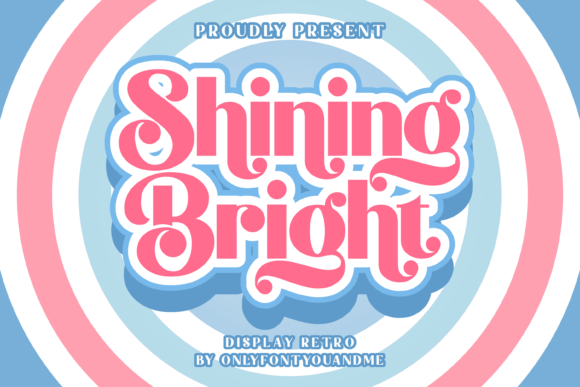
Introducing the Shining Bright Font, the ultimate game-changer in the world of typography! Created by the ingenious minds at onlyfontyouandme, this font is not just any ordinary display font, it's a work of art. With its captivating beauty and undeniable charm, Shining Bright is here to revolutionize your design projects and take them to new heights.
Are you tired of mundane and dull fonts that fail to captivate your audience? Look no further, as Shining Bright is here to make your headlines, magazines, logos, and branding shine with a brilliance that will leave everyone speechless. This font is more than just letters on a page; it's a visual masterpiece that will elevate your design to a whole new level.
Imagine the power of Shining Bright as it effortlessly grabs your reader's attention, guiding their eyes through your content with ease. Its enchanting curves and elegant strokes will evoke a sense of curiosity and intrigue, enticing your audience to explore further. Let your words dance and come alive with this beautiful and cute font, making your message impossible to ignore.
But that's not all! Shining Bright is not just visually stunning; it's also incredibly versatile. Whether you're working on a modern, edgy project or aiming for a softer, more delicate approach, this font adapts effortlessly to your creative vision. Its flexibility knows no bounds, allowing you to express your unique style and personality in every design.
Unlock the true potential of your projects and leave a lasting impression with Shining Bright. Stand out from the crowd and make a statement that resonates with your audience. With this font in your arsenal, you'll be able to create designs that are as memorable as they are captivating.